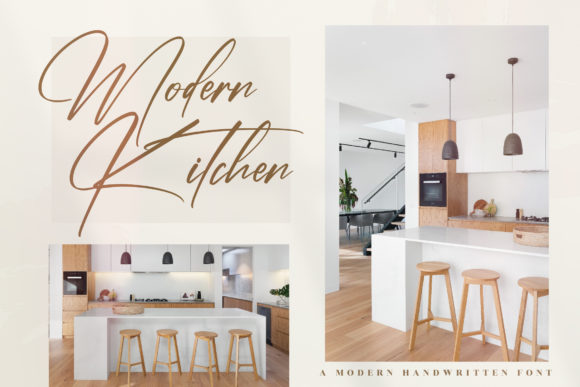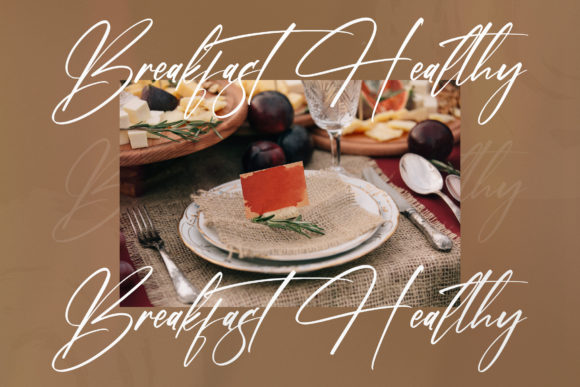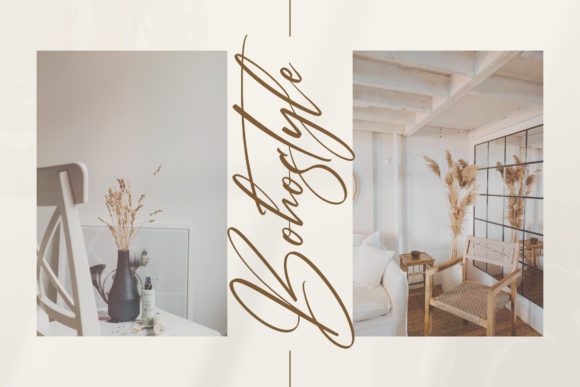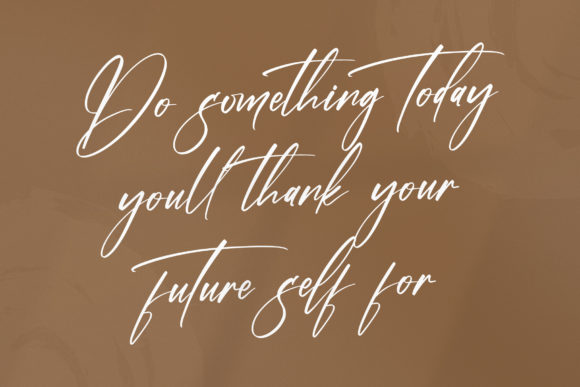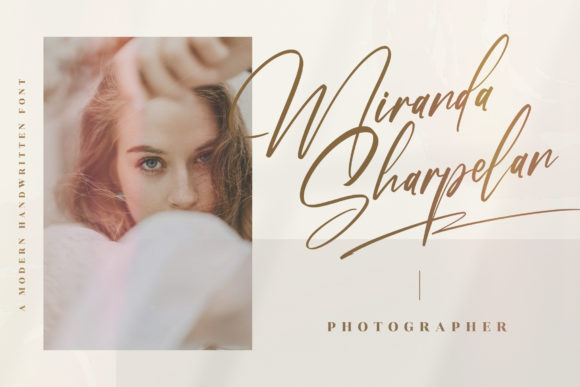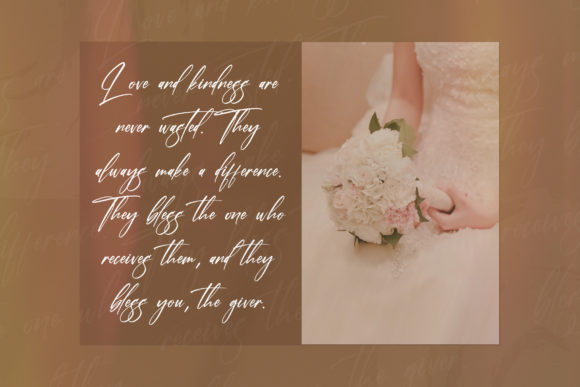
Adding a Touch of Luxury to Your Designs
Have you ever been working on a design project, pouring your heart and soul into it, and then suddenly, you need that perfect finishing touch? The one that elevates your creation from good to extraordinary? That’s where the magic happens, and that’s where the Brithan Signature Font comes in.
This stunning calligraphy typeface is designed to add a romantic and sweet touch to any design project. With characters that dance along the baseline, the Brithan Signature Font is sure to leave a lasting impression. Whether you’re designing a wedding invitation, a luxury brand’s logo, or a special occasion card, this font is the perfect choice to add that luxury spark.
What makes the Brithan Signature Font truly valuable for designers is its ease of use. With PUA encoding, you can access all of the amazing glyphs and ligatures with ease, making it a dream to work with.
Brithan Signature Font Key Features
- Font Family: Brithan Signature Font is a custom-designed font with a unique blend of modern and traditional elements.
- Unique Characteristics: The font features elegant, flowing lines, and subtle texture, creating a sophisticated and professional look.
- Script and Ligature Support: Includes advanced script and ligature support for smooth and accurate text rendering.
Review of Brithan Signature Font
I’ve had the chance to work with Brithan Signature Font, and I must say it’s a mixed bag. Here are my thoughts.
- Unique aesthetic: Brithan Signature Font has a distinctive, modern look that sets it apart from other fonts. It’s perfect for brands that want to stand out from the crowd.
- Good legibility: The font is easy to read, even at smaller sizes, making it suitable for body text and headings.
- High-quality glyphs: The font includes a wide range of characters, including international symbols and ligatures.
- Overly ornate: While the font’s unique look is a strength, it can also be a weakness. Some users may find it too ornate or distracting, especially in large quantities.
- Limited font sizes: The font doesn’t work well at very large sizes, where it can become too bold and overwhelming.
- No bold weight: The font is only available in regular weight, which can make it difficult to create contrast and hierarchy in designs.
Overall, Brithan Signature Font is a solid choice for brands that want a unique, modern look. However, it may not be the best fit for every project, especially those that require a more straightforward or traditional aesthetic. With some careful selection and use, this font can be a valuable addition to your design toolkit.
The Brithan Signature Font is ideal for:
- Creating professional business cards and letterheads.
- Designing logos and branding materials.
- Adding a touch of elegance to presentations and reports.